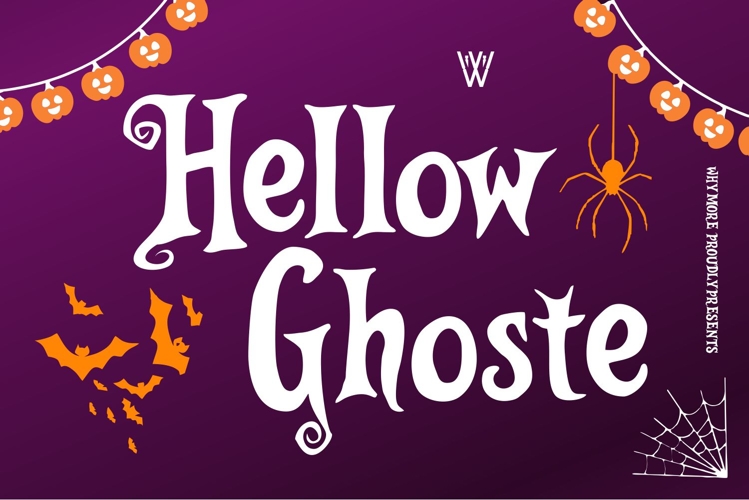
Hellow Ghoste is a Halloween Horror Decorative Brush Font designed for scary posters, creepy logos, punk rock albums, horror movies, and spooky party templates. With its gore ink strokes, retro paint vibe, and scream-inspired design, this typeface is perfect for creating edgy branding, music artwork, hardcore quotes, and Halloween graphics.
Bring danger, scream, and hardcore aesthetics to your projects—make your designs look scary, edgy, and unforgettable with Hellow Ghoste Typeface.
Hellow Ghoste